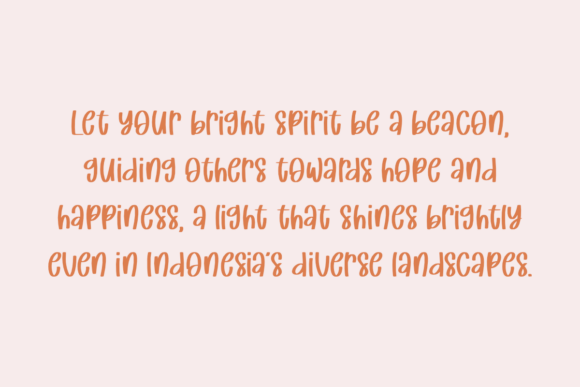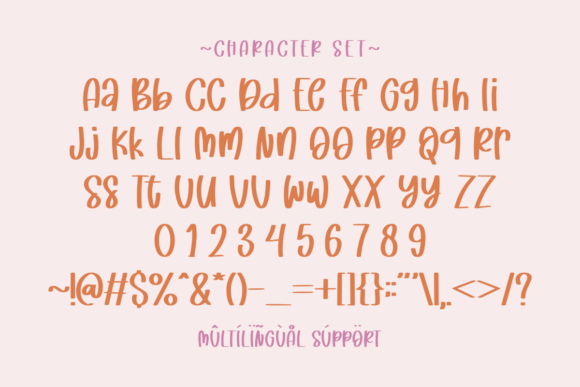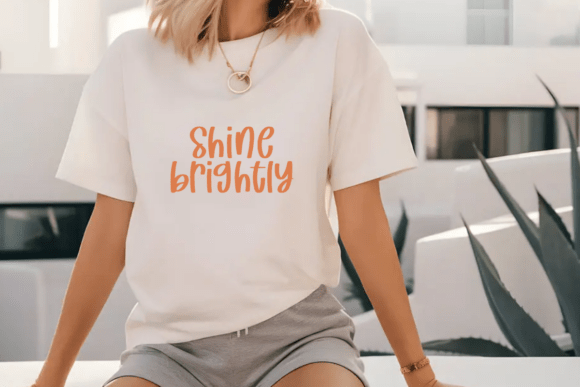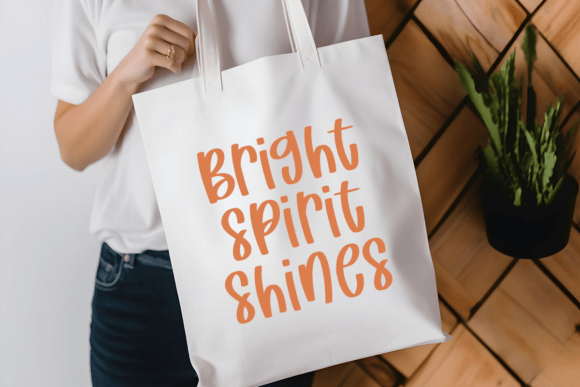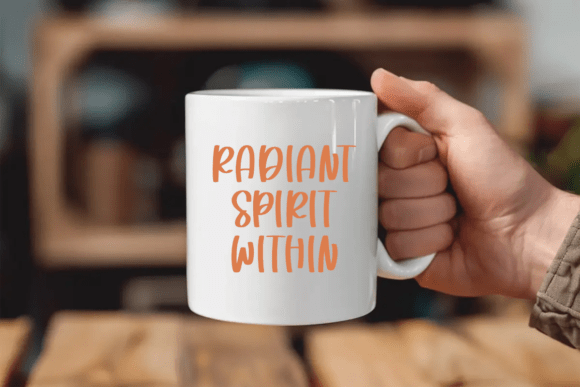
Introducing Bright Spirit Font: The Perfect Blend of Playfulness and Upliftment
Are you tired of using the same old fonts for your creative projects? Look no further than Bright Spirit Font, a tall and playful handwritten font that’s sure to add a touch of fun and brightness to your designs. With its casual charm and lively curves, Bright Spirit is the perfect go-to for greeting cards, t-shirts, posters, and creative branding that needs a boost of energy and enthusiasm.
The Characteristics of Bright Spirit Font
Bright Spirit Font is a unique and eye-catching font that’s designed to make your designs stand out. Its tall and slender letters give it a sense of elegance, while its playful curves and irregularities add a touch of whimsy and personality. The font’s casual charm makes it perfect for creative projects that need a friendly and approachable feel.
One of the key features of Bright Spirit Font is its uplifted vibe. The font’s letters are designed to look like they’re jumping off the page, giving your designs a sense of energy and movement. This makes it perfect for projects that need to convey a sense of excitement and enthusiasm, such as greeting cards, posters, and social media graphics.
Uses for Bright Spirit Font
Bright Spirit Font is a versatile font that can be used for a wide range of creative projects. Here are some ideas to get you started:
- Greeting Cards: Add a personal touch to your greeting cards with Bright Spirit Font. Its playful curves and lively vibe make it perfect for birthdays, holidays, and other celebrations.
- T-Shirts and Apparel: Give your t-shirts and apparel a fun and trendy look with Bright Spirit Font. Its casual charm and uplifted vibe make it perfect for designs that need to convey a sense of coolness and style.
- Posters and Flyers: Make your posters and flyers stand out with Bright Spirit Font. Its tall and slender letters make it perfect for headlines and titles, while its playful curves add a touch of whimsy and personality.
- Creative Branding: Add a touch of fun and brightness to your brand with Bright Spirit Font. Its casual charm and uplifted vibe make it perfect for brands that need to convey a sense of energy and enthusiasm.
Why Choose Bright Spirit Font?
So why choose Bright Spirit Font for your creative projects? Here are just a few reasons:
- Unique and Eye-Catching: Bright Spirit Font is a unique and eye-catching font that’s sure to make your designs stand out.
- Versatile: Bright Spirit Font is a versatile font that can be used for a wide range of creative projects, from greeting cards to t-shirts to posters and more.
- Easy to Read: Despite its playful curves and irregularities, Bright Spirit Font is easy to read and understand, making it perfect for designs that need to convey a message.
- Fun and Uplifting: Bright Spirit Font has a fun and uplifting vibe that’s sure to add a touch of energy and enthusiasm to your designs.
In conclusion, Bright Spirit Font is a tall and playful handwritten font that’s perfect for creative projects that need a touch of fun and brightness. Its casual charm and lively curves make it a go-to for greeting cards, t-shirts, posters, and creative branding that needs to convey a sense of energy and enthusiasm. With its unique and eye-catching design, versatility, and ease of use, Bright Spirit Font is a must-have for designers and crafters looking to add a little excitement to their designs.